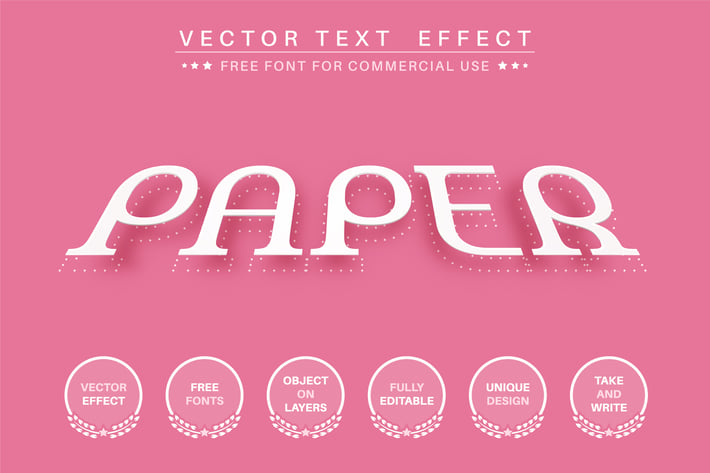
Paper over surface - edit text effect, font style.
Hello! I'm happy to introduce my new text effect "Shadow paper". Just write your word and the effect will apply! Be as creative as you like to be in expressing yourself using this unique “Shadow paper”. Effect is perfect for any project that needs a unique handy touch whatever else your imagination leads you to!